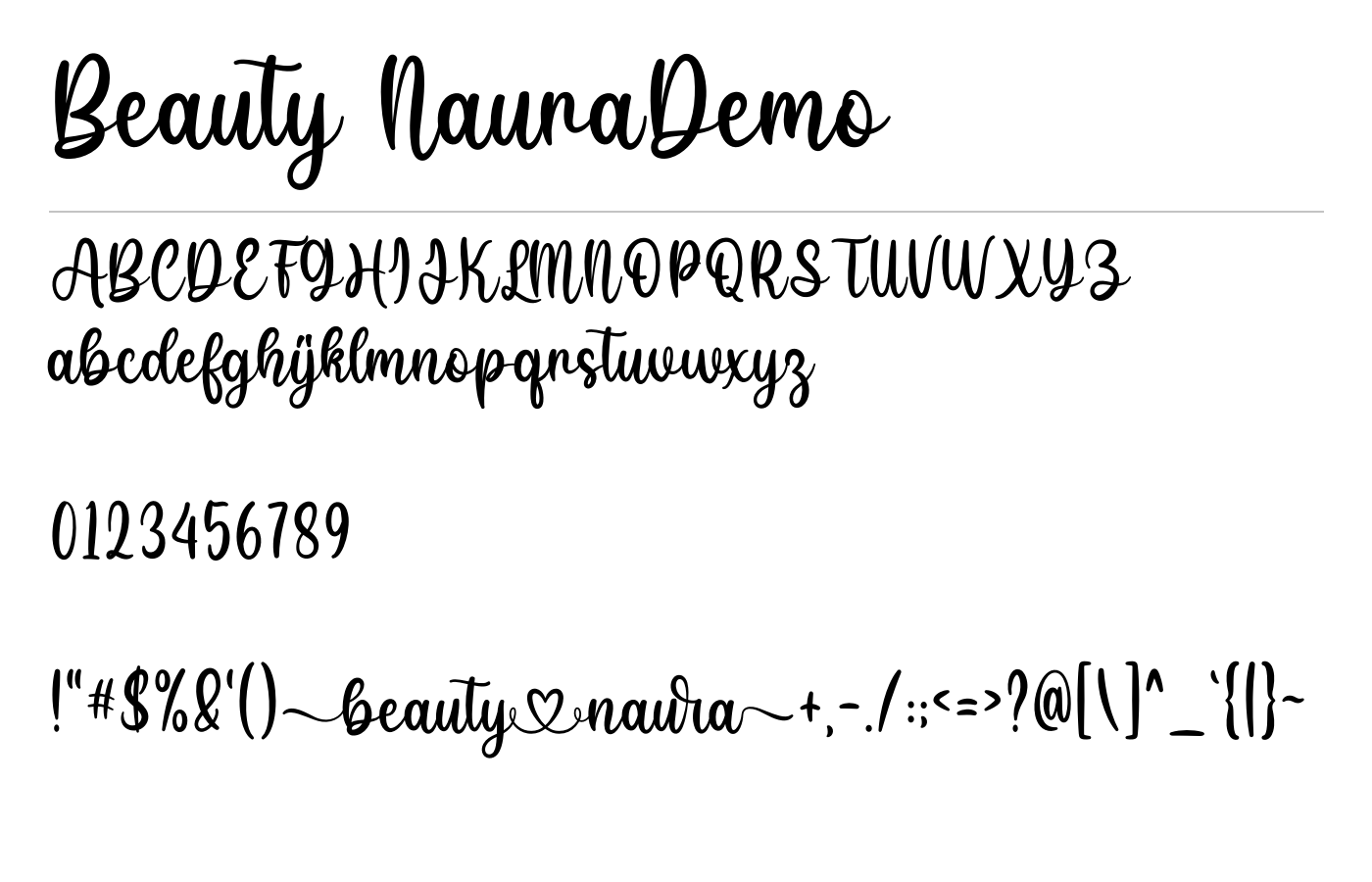
Beauty NauraDemo is a playful and elegant script font with a handwritten feel, featuring smooth, flowing strokes and a medium weight that brings warmth and charm. Its rounded, slightly condensed letterforms and unique details, like heart-shaped flourishes, make it perfect for creative branding, invitations, and feminine designs. This font adds a personal, friendly touch to projects seeking a stylish yet approachable look.
Beauty NauraDemo Font
About Beauty NauraDemo Font